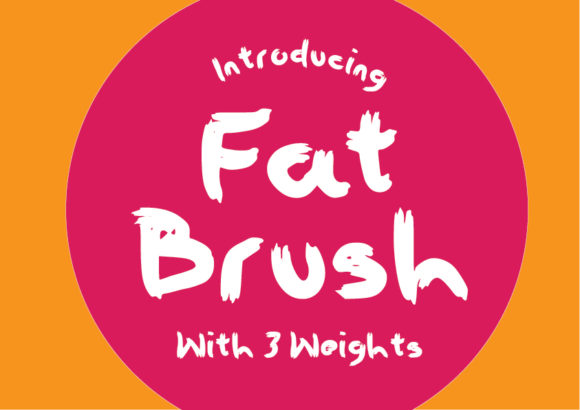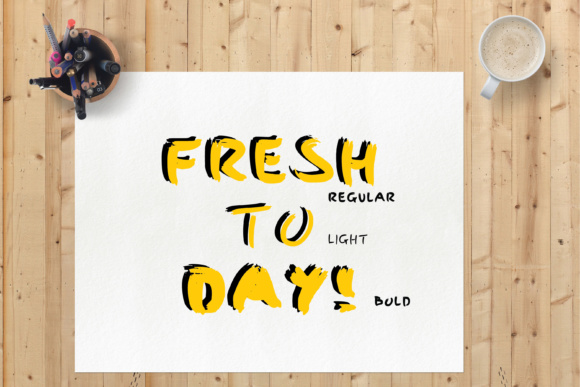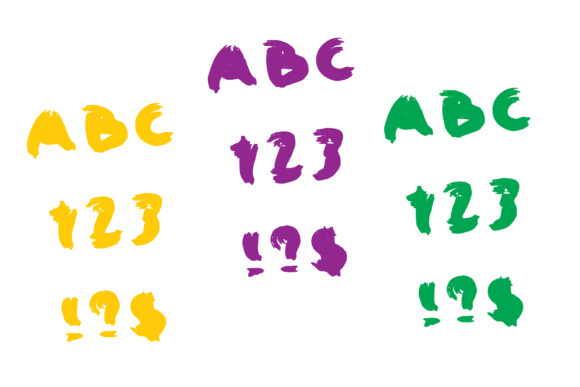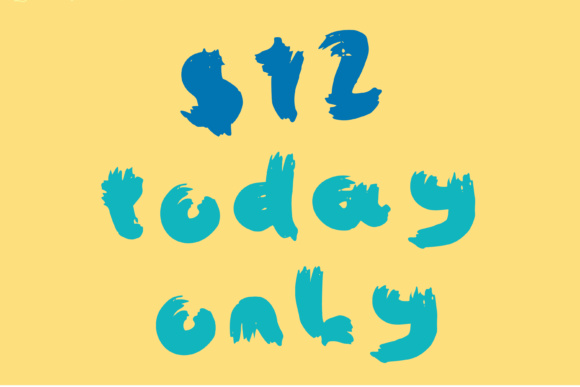
Fat Brush Font
About Fat Brush Font
A hand drawn brush font with wonderful detailing to the brush strokes. Use for a DIY, rough and ready, decorating style lettering. Wet paint warnings at the ready.